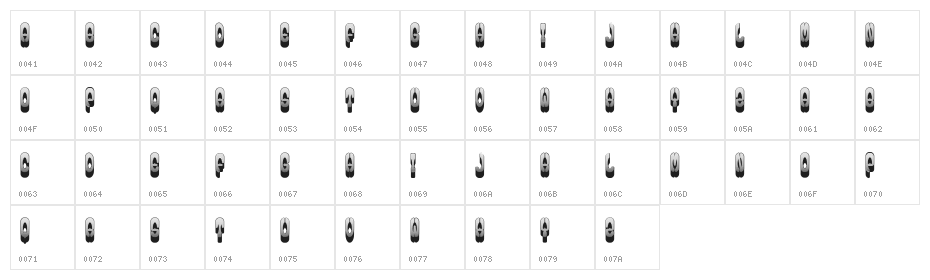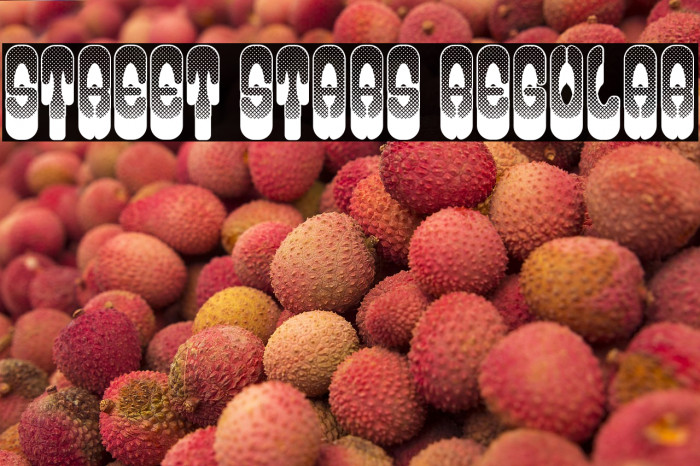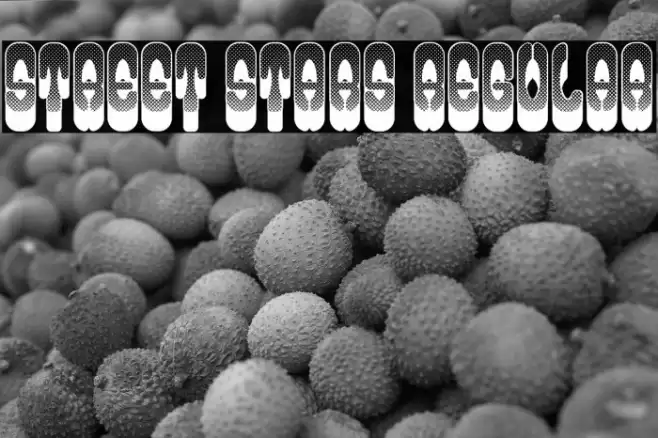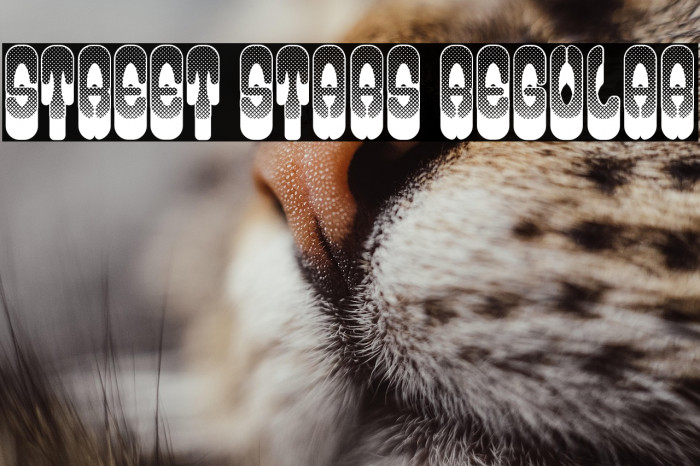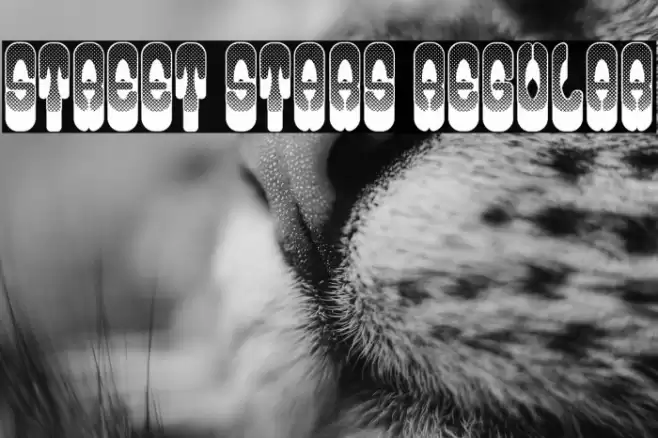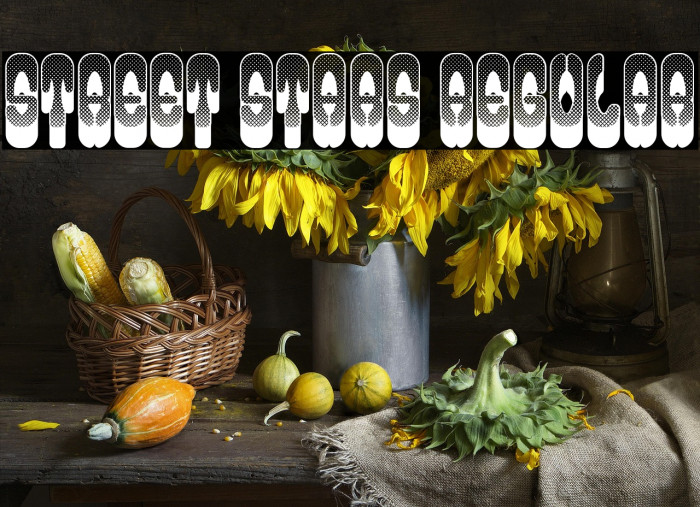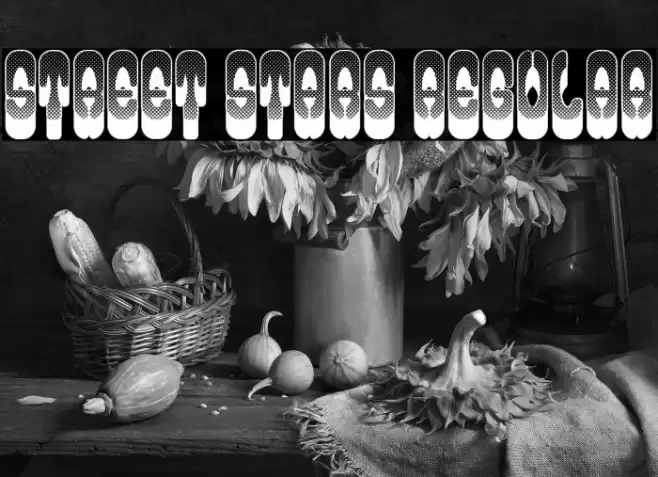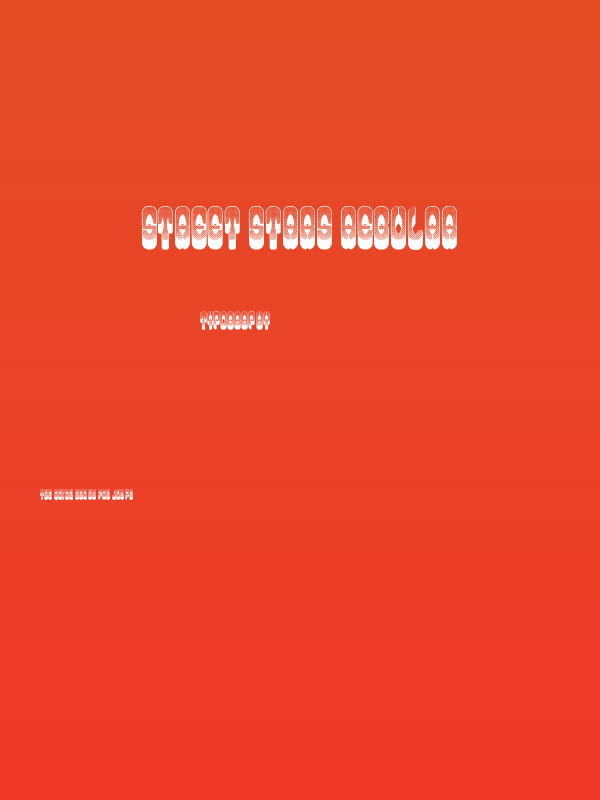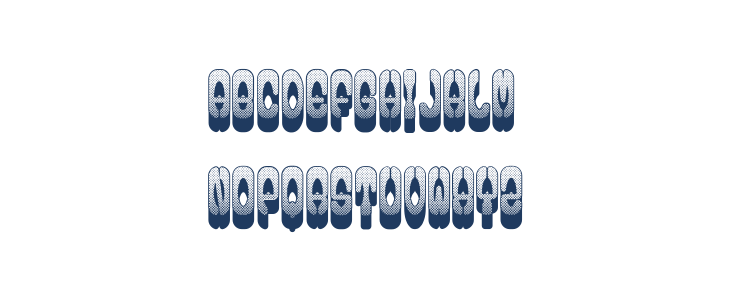
Street Stars Regular Font
Street Stars Regular Description
This font features a bold, three-dimensional style with a playful and dynamic appearance. Each character is designed with a thick outline and a dotted texture, creating a sense of depth and movement. The letters are uppercase and have a uniform height, contributing to a cohesive look. The font's shadow effect enhances its dimensionality, making it stand out on any background. Its unique design is reminiscent of street art and urban culture, making it ideal for projects that require a bold and eye-catching aesthetic.
| Overall Style | Urban, Playful, Bold |
| Proposed Projects | Ideal for street art-inspired designs, posters, album covers, and branding that requires a bold statement. |